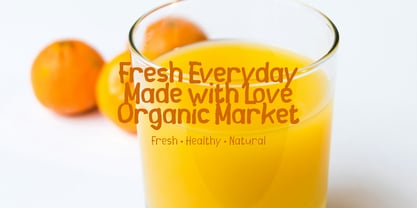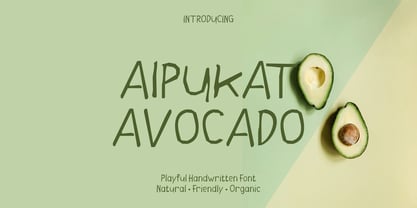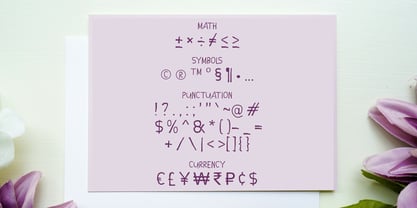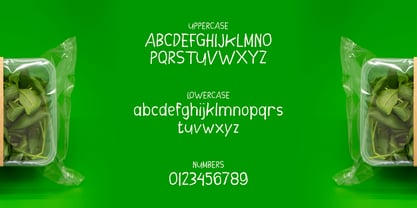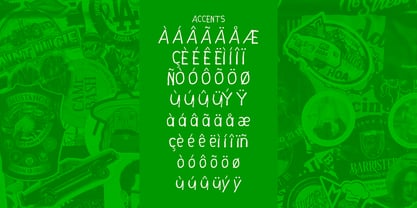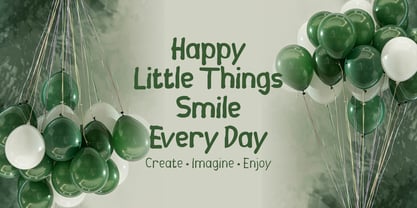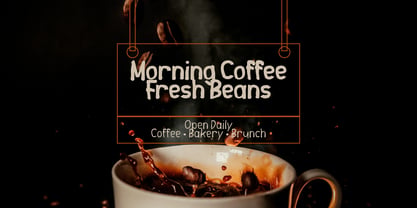
Alpukat Avocado
by Mei Suseno
The Alpukat Avocado Font Family was designed by Wahyu Eka Prasetya, Mei Suseno and published by Mei Suseno. Alpukat Avocado contains 2 styles and family package options. More about this family
ALPUKAT AVOCADO is a playful handwritten display font that brings a fresh, natural, and cheerful personality to any design. Featuring clean hand-drawn strokes with an organic, imperfect look, this font is perfect for creating warm and friendly visuals. Its casual style makes it ideal for branding, food packaging, café menus, children's products, greeting cards, posters, social media graphics, stickers, planners, and creative DIY projects. Whether you're designing for a modern organic brand or a fun lifestyle theme, ALPUKAT AVOCADO adds an authentic handcrafted touch that makes your typography stand out with charm and simplicity.
Designers: Wahyu Eka Prasetya, Mei Suseno
Foundry: Mei Suseno
Mei Suseno is an independent type foundry focused on creating distinctive, high-quality typefaces for modern branding, editorial design, digital products, and visual communication. The foundry combines contemporary aesthetics with careful craftsmanship to develop fonts that are both functional and expressive. With an emphasis on originality, versatility, and strong visual identity, Meisuseno aims to support designers, creative studios, and brands in building memorable and effective design experiences across print and digital media.